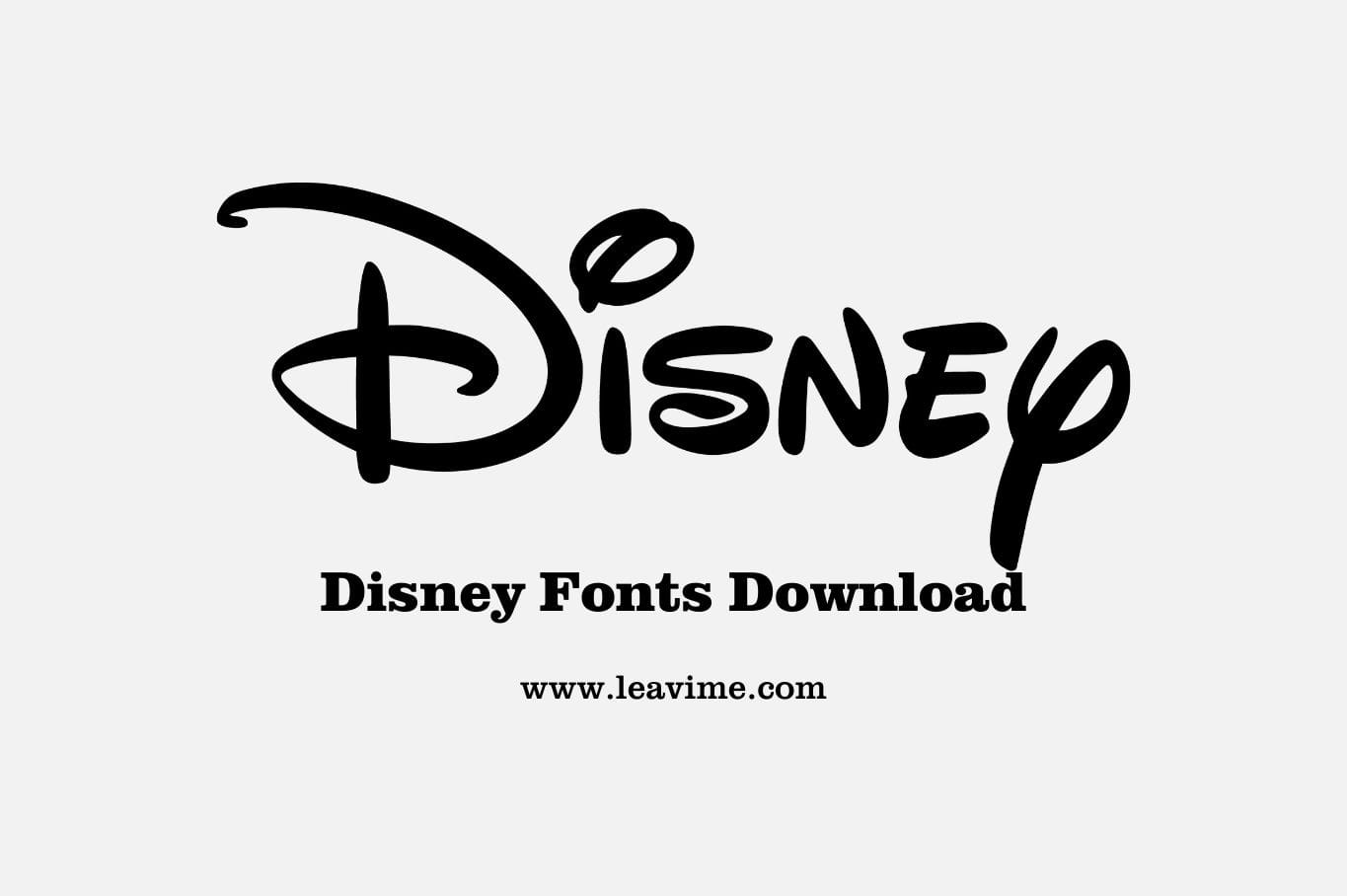
Disney Font Family
The Walt Disney Company is one of the most recognizable names in entertainment, shaping the animation and media landscape for decades. Beyond its beloved characters and magical storytelling, Disney’s branding is just as iconic—especially its typography. The Disney font family plays a crucial role in maintaining the company’s unique and nostalgic visual identity.
The History Behind Disney Fonts
Disney was founded on October 16, 1923, by Walt and Roy O. Disney as The Walt Disney Brothers Cartoon Studio. Over the years, the company evolved into a global entertainment empire, encompassing movies, television, theme parks, and more. One of the elements that helped establish its strong brand identity is its distinct typography, often inspired by Walt Disney’s personal signature.
Disney’s fonts are widely used in various branding materials, merchandise, and fan-made designs. The playful and whimsical aesthetic of these typefaces captures the magic and charm that Disney is known for, making them highly sought-after by designers, marketers, and Disney enthusiasts alike.
Popular Disney Fonts
There are several Disney-inspired fonts, each reflecting different aspects of the company’s legacy. Below are some of the most popular ones:
1. Waltograph
Waltograph is perhaps the most famous Disney font, inspired by Walt Disney’s autograph. It is often used for fan-made Disney designs, invitations, and merchandise. The elegant, flowing script adds a touch of nostalgia and whimsy to any project.
2. Mickey Mouse Font
Inspired by the iconic Mickey Mouse logo, this font features bold, rounded letters reminiscent of classic Disney animation. It’s commonly used in Disney-themed decorations, children’s products, and themed party invitations.
3. Disney Park Fonts
Fonts used in Disney theme parks, such as the Cinderella Castle font or Adventureland font, add to the immersive experience of visiting a Disney park. These typefaces capture the fantasy and wonder associated with the Disney brand.
4. Disney Movie Fonts
Several Disney movies have distinct typefaces associated with their branding. For instance:
- Frozen Font: A frosty, icy design inspired by the hit film Frozen.
- Lion King Font: A tribal-inspired font reflecting the African setting of The Lion King.
- Toy Story Font: A playful, blocky font used in Toy Story promotions.
Why Use Disney Fonts?
Disney fonts evoke nostalgia, excitement, and joy, making them ideal for various creative projects. Whether you’re designing party invitations, branding a product, or creating themed merchandise, these fonts help capture the magic of Disney.
The Disney font family remains an essential part of Disney’s branding and continues to inspire designers and fans worldwide. Whether you’re looking for free Disney-style fonts or premium versions, there are plenty of options to bring a touch of Disney magic to your projects.